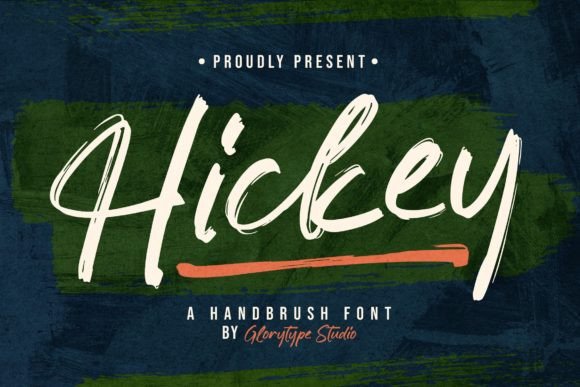
Hickey Font: A Handwritten Brush Script Font for Creative Expression
The Hickey font is a beautiful, handwritten brush script font that mimics the look and feel of writing on a marker board. This font is perfect for creating eye-catching greeting cards, invitations, and motivational quotes that convey your message with a personal touch. In this article, we’ll explore the features and benefits of the Hickey font, and how it can help you express yourself creatively.
What is Hickey Font?
Hickey is a carefully crafted handwritten brush script font that replicates the organic feel of writing on a marker board. The font’s unique design makes it perfect for a variety of creative projects, from greeting cards and invitations to social media graphics and motivational quotes.
Key Features of Hickey Font
- Handwritten Brush Script: Hickey font features a beautiful, handwritten brush script that gives your text a personal and artistic touch.
- Marker Board Feel: The font’s design mimics the look and feel of writing on a marker board, making it perfect for creating eye-catching graphics.
- Multilingual Support: The font supports multiple languages, making it a great choice for global brands and designers.
Benefits of Using Hickey Font
The Hickey font offers a range of benefits for designers, marketers, and creatives. Here are some of the advantages of using this font:
- Unique and Creative: Hickey font provides a unique and creative way to express yourself and convey your message.
- Easily Readable: The font is designed to be easily readable, making it perfect for body text and captions.
- Versatile: Hickey font can be used for a variety of projects, from print materials to digital graphics.
Use Cases for Hickey Font
The Hickey font is perfect for a variety of creative projects. Here are some use cases to get you started:
- Greeting Cards: Create beautiful and personalized greeting cards for special occasions.
- Invitations: Design eye-catching invitations for weddings, parties, and other events.
- Motivational Quotes: Create inspiring and motivational quotes for social media and marketing campaigns.
- Social Media Graphics: Use Hickey font to create stunning social media graphics that grab attention.
Tips for Using Hickey Font
Here are some tips for getting the most out of Hickey font:
- Experiment with Colors: Try out different colors and color combinations to add depth and interest to your text.
- Play with Ligatures: Use the font’s ligatures and glyphs to add a creative touch to your text.
- Mix and Match: Combine Hickey font with other fonts to create a unique and visually appealing typography.
The Hickey font is a beautiful and versatile handwritten brush script font that’s perfect for creative expression. With its unique design, PUA encoding, and multilingual support, this font is ideal for a variety of projects, from greeting cards and invitations to social media graphics and motivational quotes. By following the tips and use cases outlined in this article, you can unlock the full potential of Hickey font and take your creative projects to the next level.